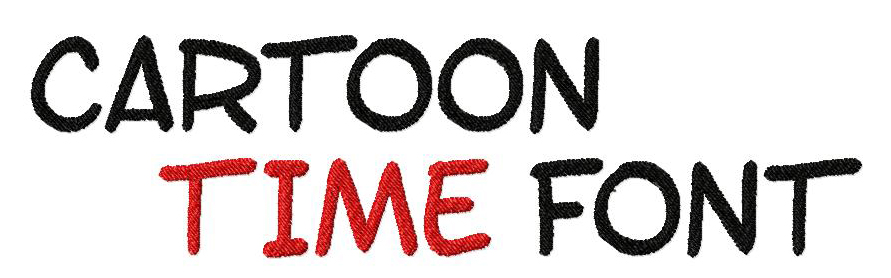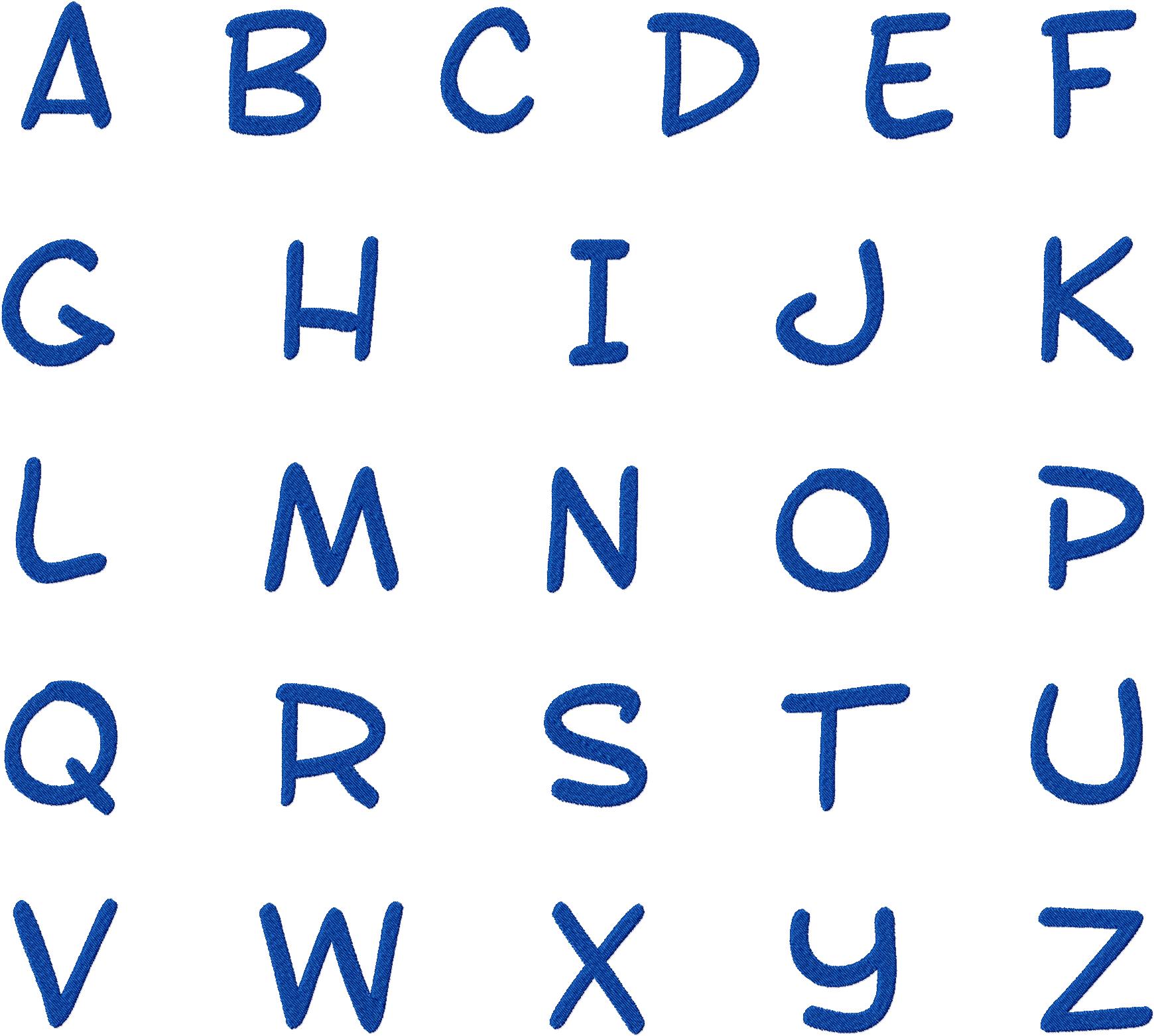
Make all times Toon Time with this silly and fun machine embroidery font set. Personalize a project for your little ones today! Download the Cartoon Time Font Set for free for one day only.